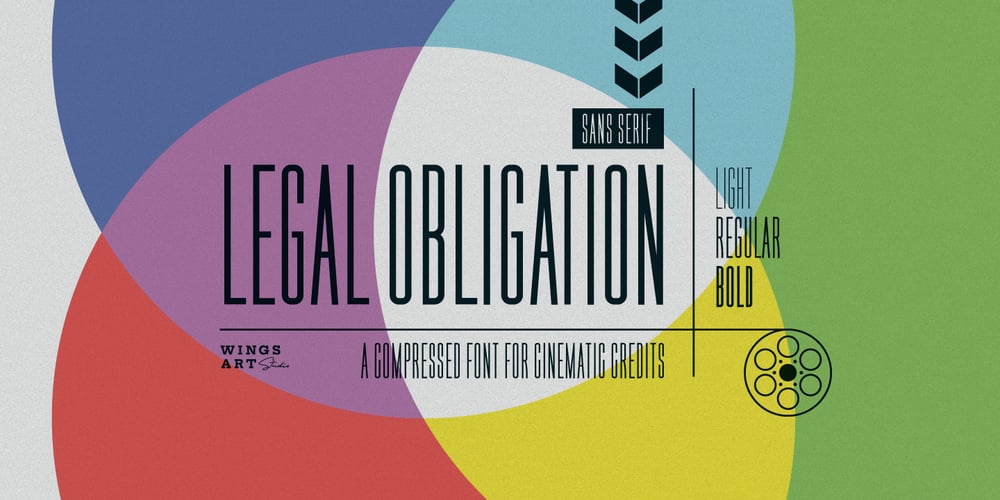
Legal Obligation Sans Serif Font Family was designed by Christopher King and published by Wing’s Art Studio. Legal Obligation Sans Serif contains 3 styles and family package options. Legal Obligation – Sans Serif VersionA dedicated compressed Sans Serif font for movie poster credit blocks and cinematic title designs.A workmanlike tool for adding extensive cast and crew information to movie posters without dominating the overall layout. Supplied with lowercase characters and three weights.Contents:- Legal Obligation (Sans Serif Version)- Light, Regular and Bold Weights